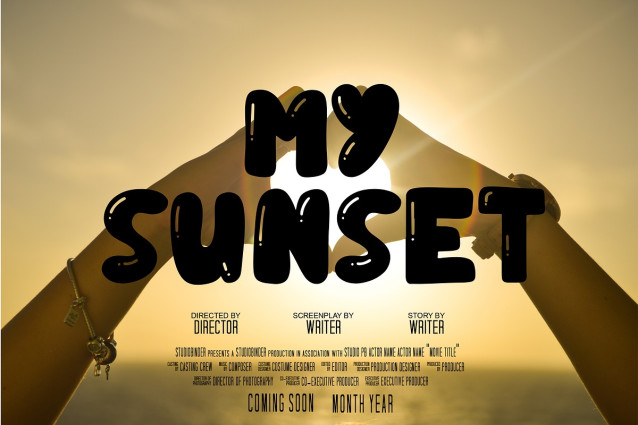
Puffy Love Font
Puffy Love Font is a playful and charming bubble font that’s perfect for designs that need a touch of sweetness. Its rounded, puffy letters create a friendly and fun vibe, making it ideal for cards, posters, invitations, and products that celebrate love, joy, and positivity.